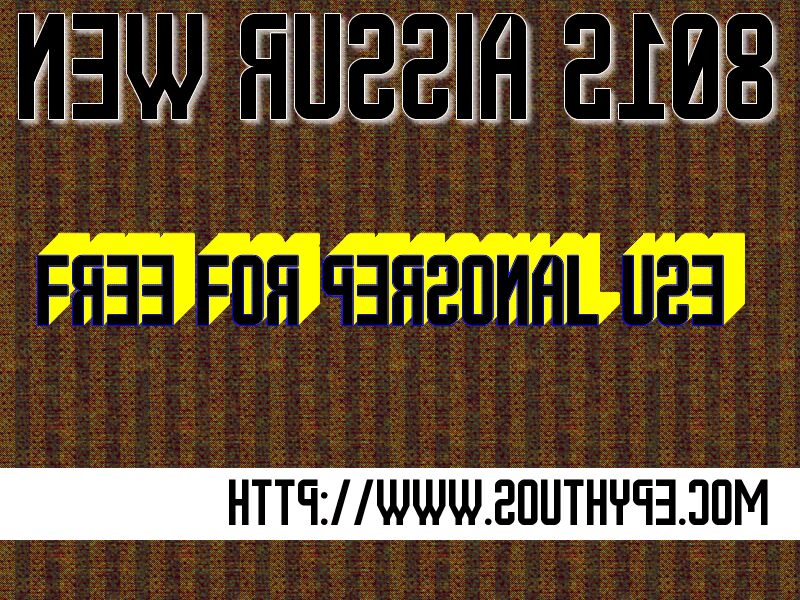
New Russia 2108 St is a distinctive faux-Russian font designed by Southype. Its condensed width and bold, angular letterforms evoke a sense of industrial strength and Soviet-era aesthetics. The sharp, angular serifs and uneven stroke widths lend the font an authentic, hand-crafted feel, while the overall geometric structure gives it a modern, minimalist appeal. This font would be well-suited for a wide range of applications, from book covers and magazine headlines to branding and packaging design, where a strong, no-nonsense visual impact is desired.
This font's unique character and style make it a versatile choice for designers seeking to convey a sense of rugged, Eastern European influence in their projects. Its bold, impactful presence can lend an air of authority and gravitas to any design, making it a compelling option for editorial, political, or industrial-themed applications.